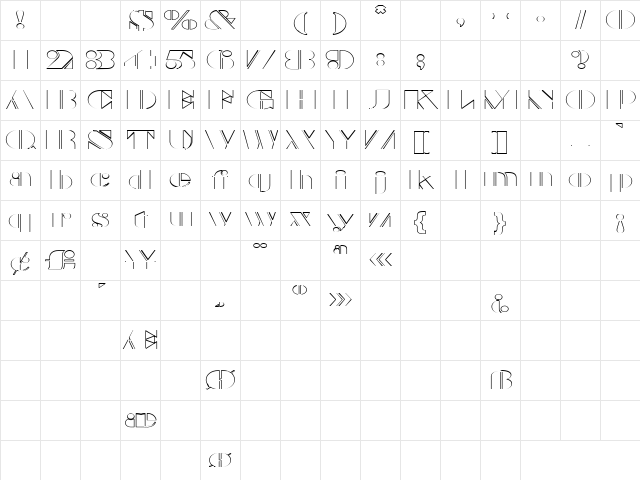
Customs 3 Regular Free Font
Customs 3 Regular
Design Context for Customs 3
Customs 3 is a composed and adaptable typeface that performs quietly and consistently across a wide range of design contexts.